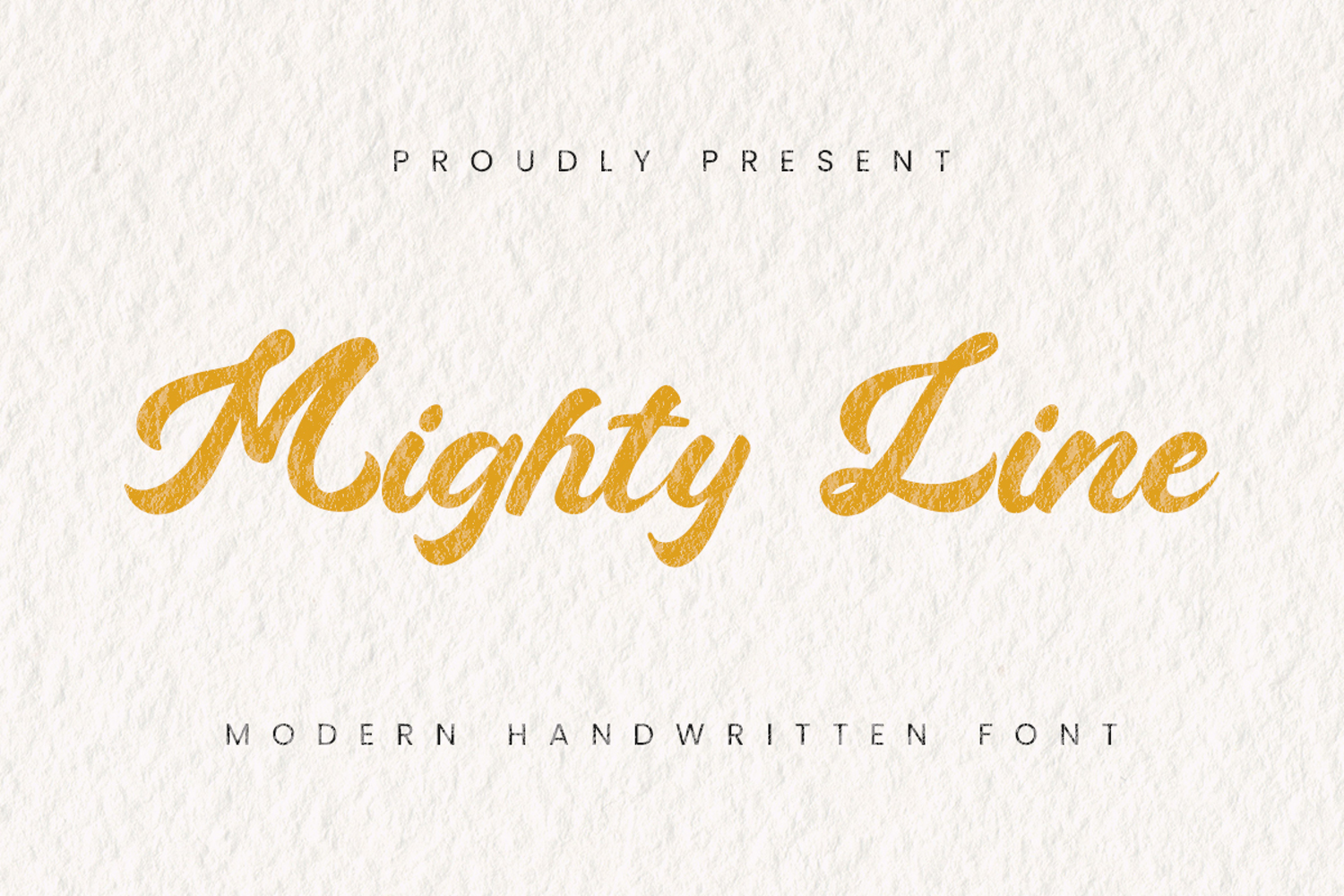
Mighty Line
Mighty Line is a strong, confident display typeface designed to make bold statements. With clean lines, sturdy stroke weight, and balanced proportions, this font delivers a modern yet timeless look — perfect for headlines, branding, signage, packaging, and any project that needs instant visual impact.
Highlights:
Bold and clear letterforms that stand out even at large sizes without sacrificing readability.
Clean, geometric construction with consistent stroke width, giving a professional and polished feel.
Versatile enough for a wide range of uses: from logos, posters, packaging, web banners, to editorial layouts.
Great for brands and designs that aim to communicate strength, clarity, and modernity.
Whether you're crafting a sleek logo, designing impactful packaging, or creating a striking poster — Mighty Line brings confidence and clarity to your typography.